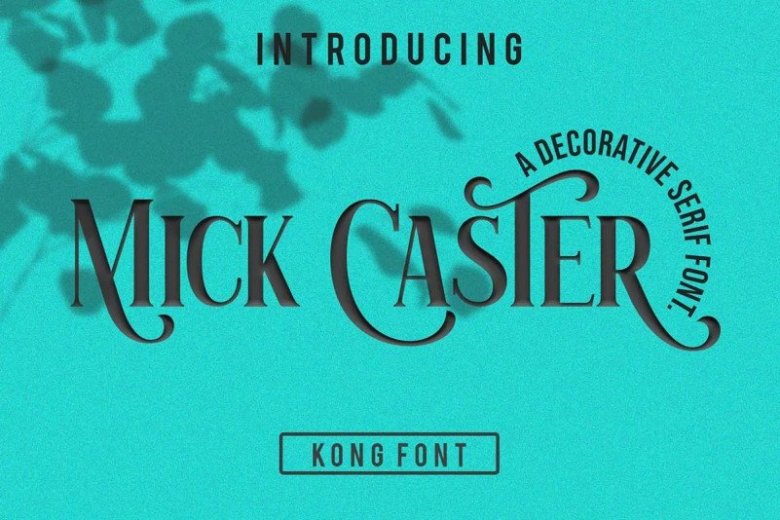
Mick Caster Serif Font
Mick Caster Serif Font is a magical modern vintage font will stylistic alternates and beautiful cutout ligaturs. It’s designed and shared by fontkong. this Typeface is magical in every way. With beautiful stylistic alternets and ligatures the font will be you best choice for both Text type and Display Type. Mick Caster is designed to fill the text gaps between serif text lines.